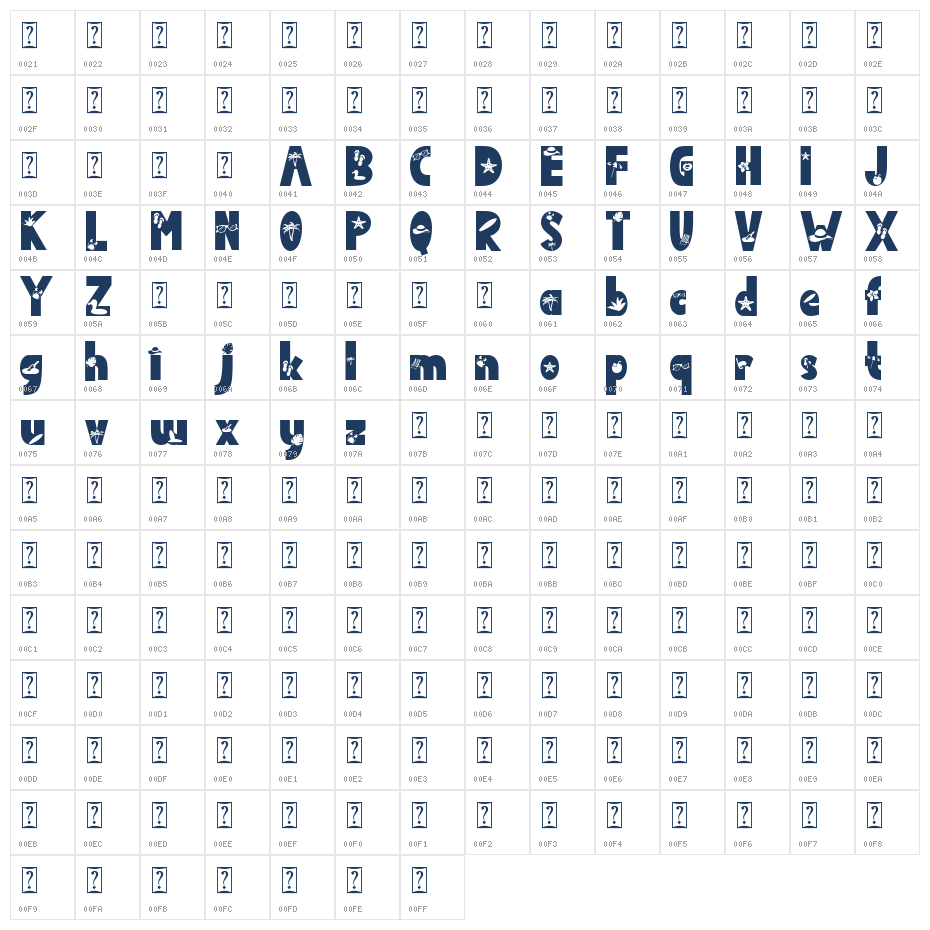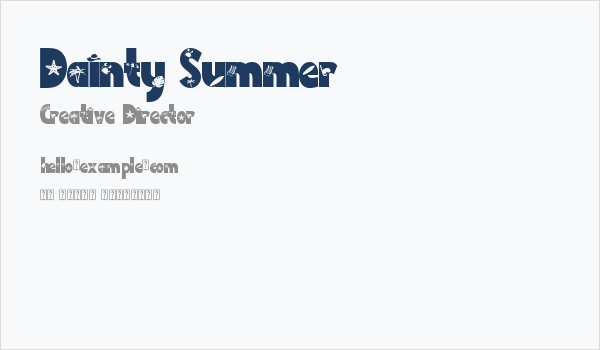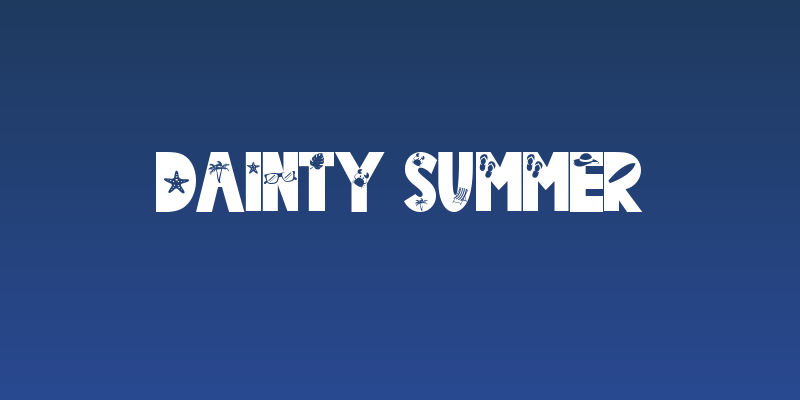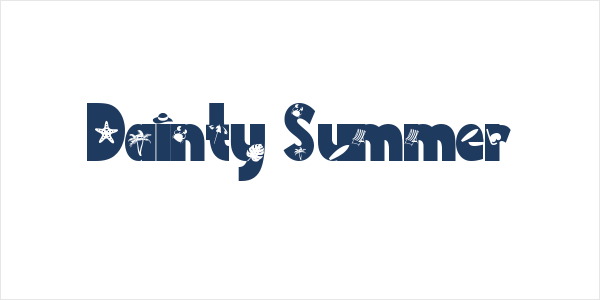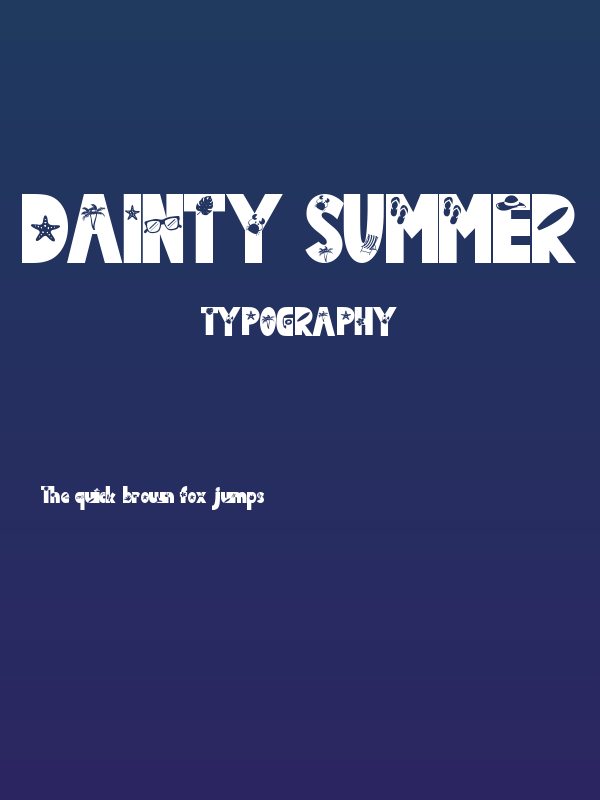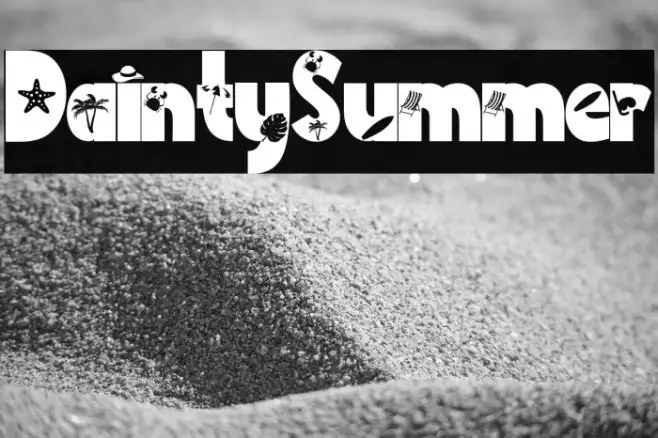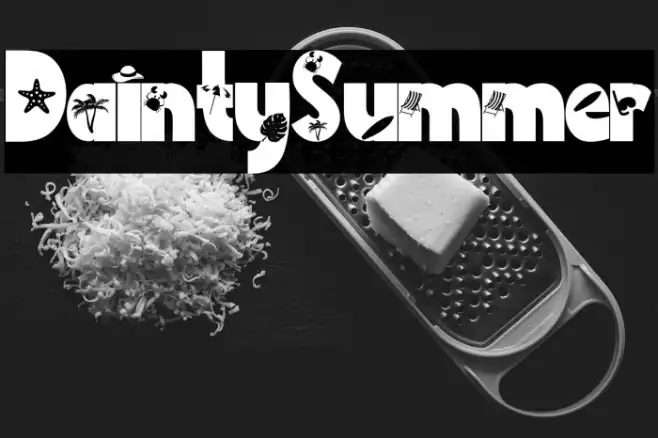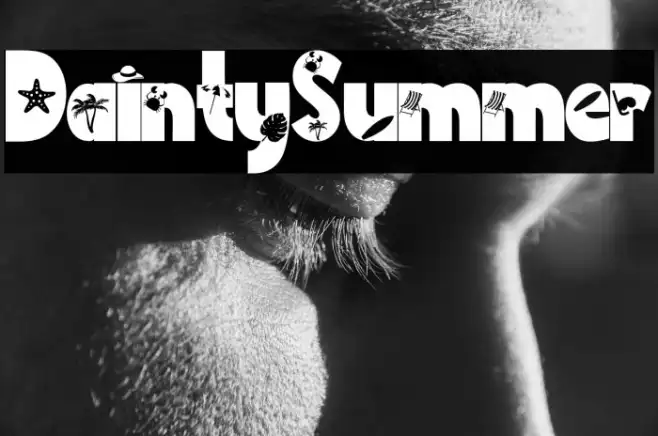
Dainty Summer Font
Dainty Summer Description
Bold, playful display font with summer and beach-themed icons integrated into each character, featuring a chunky, geometric style with decorative elements.
Dainty Summer
| Overall Style | Playful, Retro, Vacation-inspired |
| Use Case | Headlines, Posters, Logos, Branding |